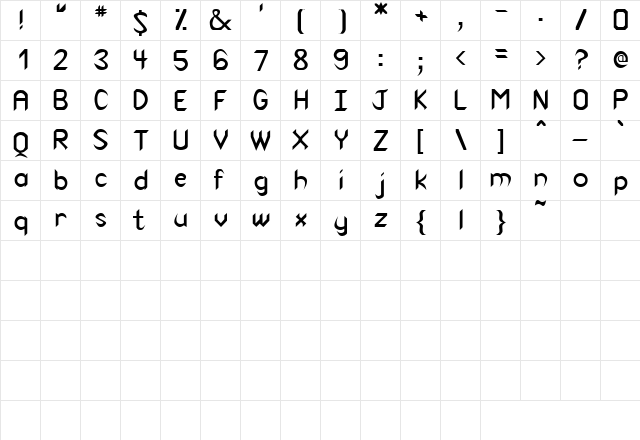
Venom Regular
Design Context for Venom Typeface
Venom is a composed and adaptable typeface that performs quietly and consistently across a wide range of design contexts.